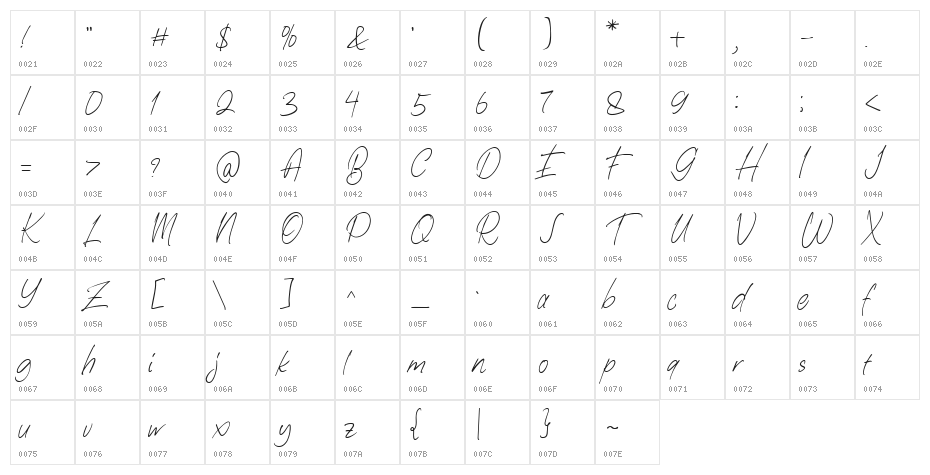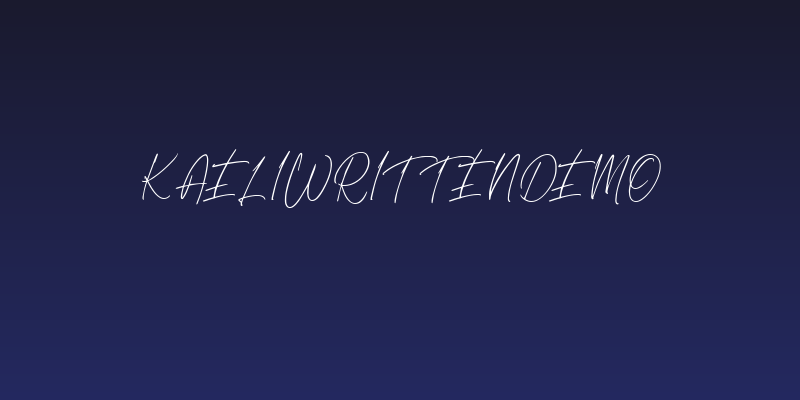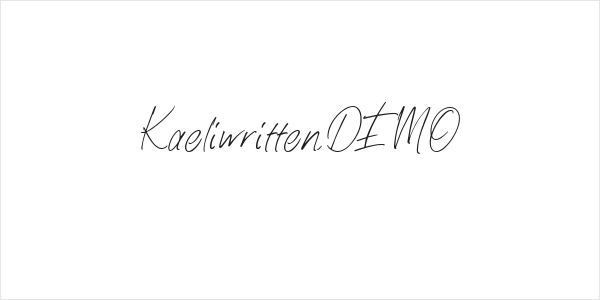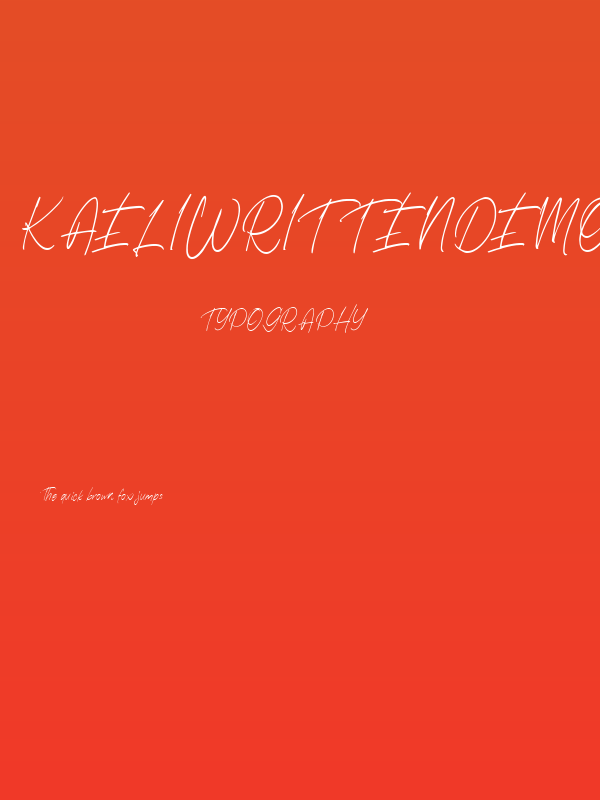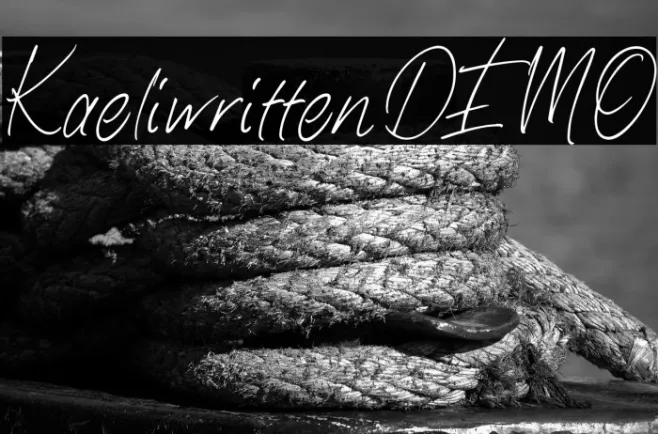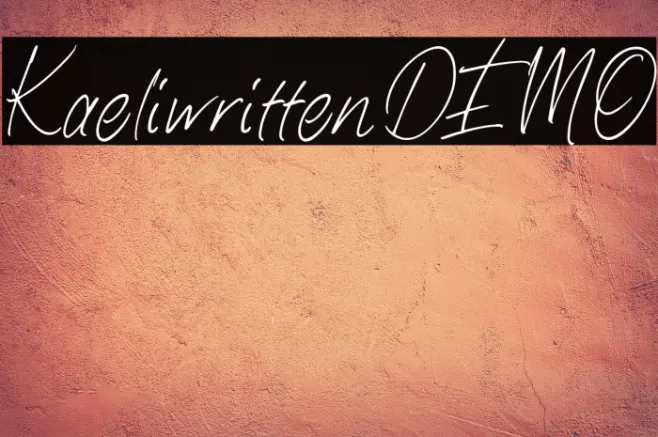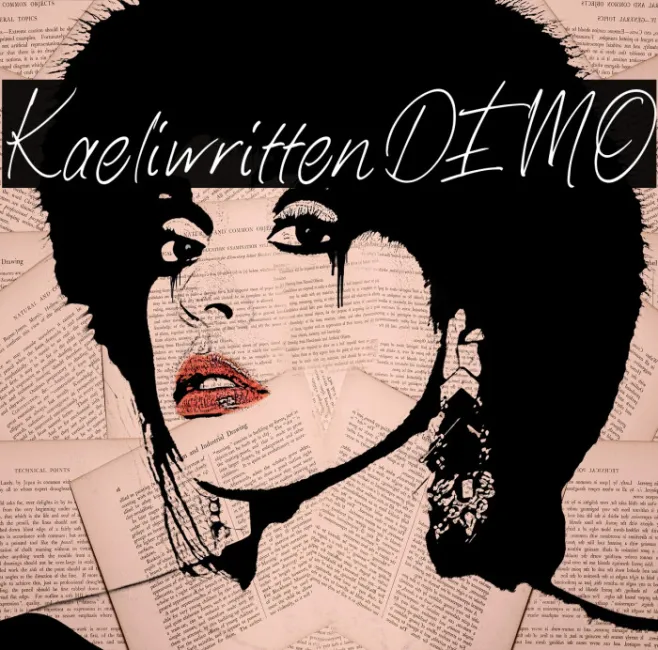
KaeliwrittenDEMO Font
KaeliwrittenDEMO Description
This font exudes a casual yet elegant handwritten style, characterized by its fluid and natural strokes. The letters are slightly slanted, giving a sense of movement and dynamism. The uppercase letters are tall and slender, while the lowercase letters maintain a consistent flow, enhancing readability. The numerals are well-proportioned, complementing the overall aesthetic. Special characters are crafted with the same attention to detail, ensuring they blend seamlessly with the alphabet. The font's organic feel makes it suitable for projects that require a personal touch.